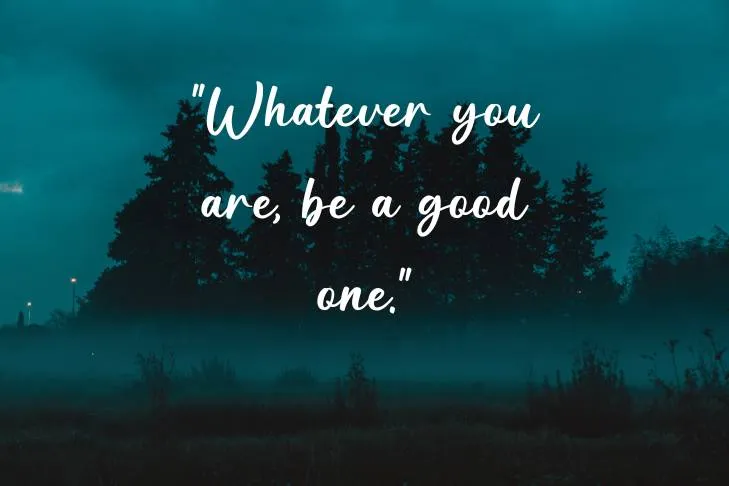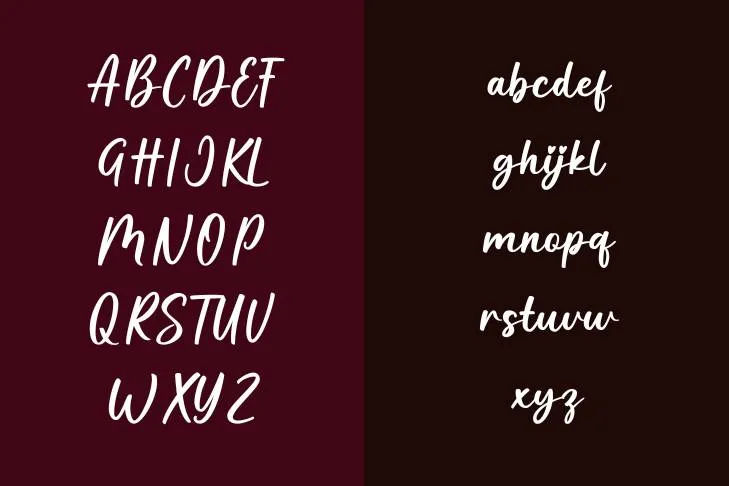
A lovely and refined script typeface, Bestie Font is ideal for designs with a unique, handcrafted feel. Any creative project benefits from the font’s charming and feminine touch due to its delicate and flowing shape. It has quickly gained popularity among designers and other artists who are searching for a typeface to give their creations a unique and customized vibe.
Creativeletter has beautifully created this classy typeface. It is renowned for its exquisite calligraphy and its goal in designing this font was to produce a hand-written typeface that would convey the personal character of handwritten texts.
From wedding invitations to branding and packaging, this fantastic typeface is ideal for using in a variety of various creative projects. For works that call for a unique and customized touch, the font’s elegant and polished style is ideal. Additionally, the font is perfect for e-books, blog articles, and visuals for social networking.
It works well with many different fonts and may be customized to the desired look and feel for the designs and patterns. Bestie Font is a great choice for designers developing individualized and distinctive graphics. By using the glitch font in conjunction with this typeface, you can achieve remarkable displays.
In short, Bestie Font is a stunning and sophisticated script font that gives any design project a unique and customized vibe. The font was created nicely and it has a delicate and graceful appearance because it mimics the natural strokes of a calligraphy pen. It is ideal for a variety of uses, including branding and packaging as well as wedding invitations.
Unique Features of Bestie Font
It has a delicate, flowing style that resembles the organic calligraphy pen strokes. The letters are elegantly curved and streamlined, making them ideal for designs that call for a personalized touch. The typeface can be utilized in a variety of various design projects because it is offered in a range of weights from light to bold. The typeface is ideal for use in designs for weddings, luxury companies, and individual blogs due to its elegance and sophisticated taste.
Depending on the requirements and desired style of the design project, Bestie Font works well with a number of typefaces. Bestie Font can be combined with sans-serif fonts like Roboto or Open Sans for a contemporary and clean look.
This Font can be combined with cursive or handwriting-like fonts like Amatic SC or Handlee font for a more playful and lively vibe. When combining typefaces, it’s crucial to keep the design’s general mood in mind and make sure the fonts work together harmoniously rather than clashing.
This remarkable and delicate typeface is composed of a single-weight family, that is, Regular. Its Regular weight equips an incredible set of glyphs, ligatures, and other necessary characteristics which give unlimited options to designers to design a stunning project.
It has a delicate, flowing style that resembles the organic calligraphy pen strokes. The letters are elegantly curved and streamlined, making them ideal for designs that call for a personalized touch.
It works well with many different fonts and may be customized to the desired look and feel for the designs and patterns. This Font is a great choice for designers wishing to develop individualized and distinctive graphics.
Creativeletter has beautifully created this classy typeface. It is renowned for its exquisite calligraphy and its goal in designing this font was to produce a hand-written typeface that would convey the personal character of handwritten texts.